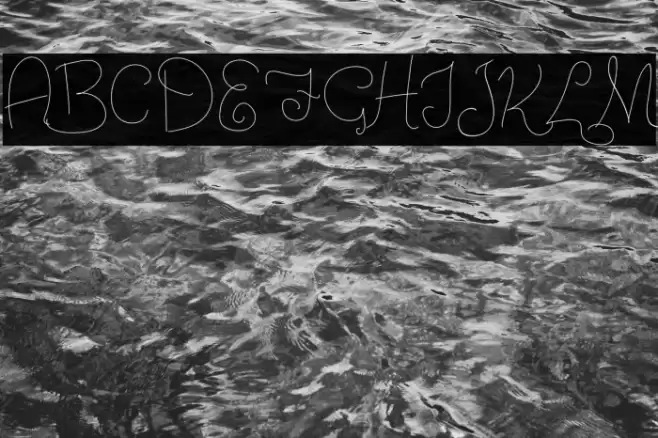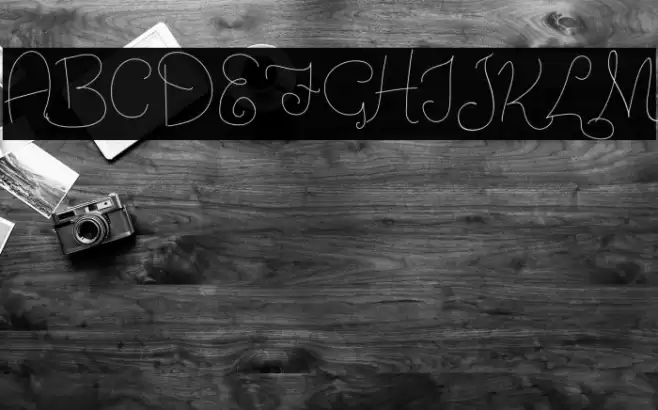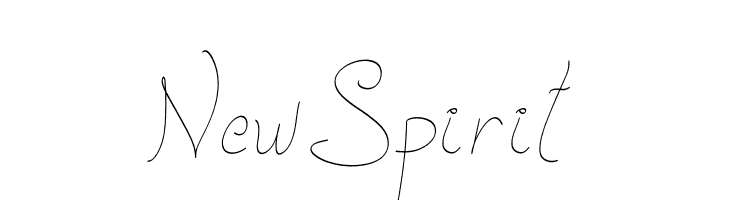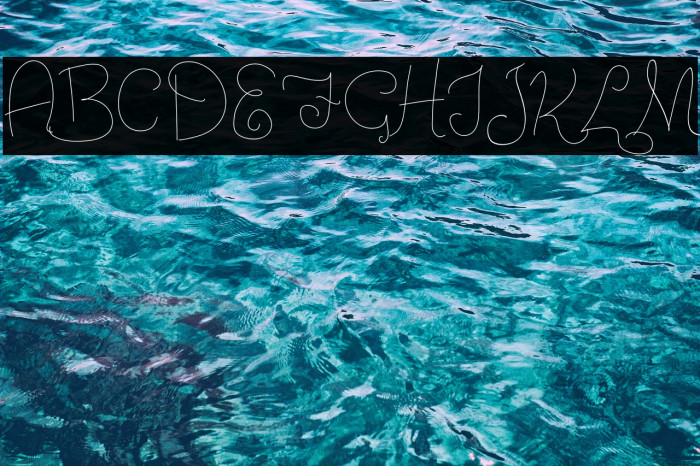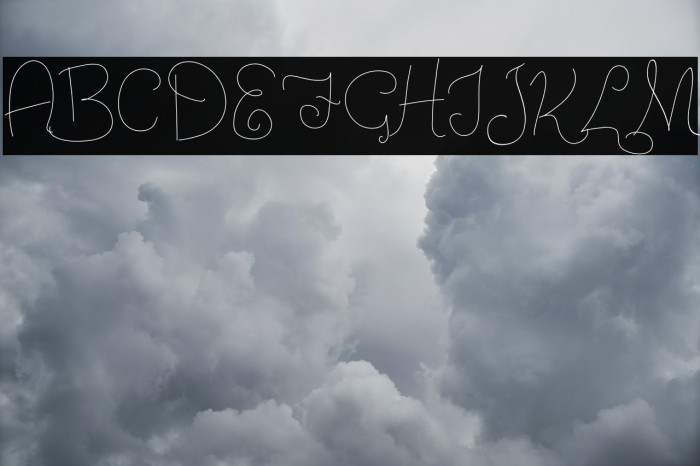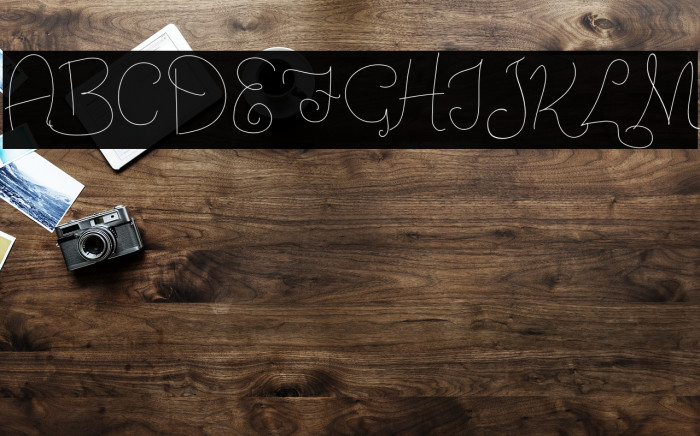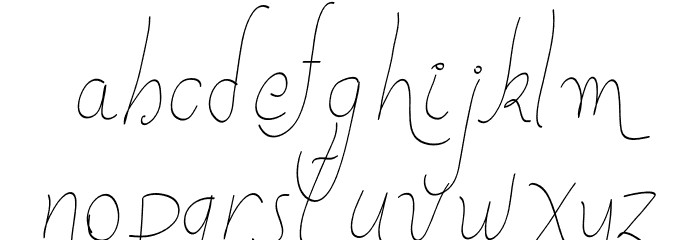
New Spirit Font
New Spirit Description
This font presents a unique blend of elegance and whimsy, characterized by its flowing, cursive-like strokes and delicate loops. The uppercase letters exhibit a playful yet sophisticated style, with each character featuring subtle flourishes that add a touch of personality. The lowercase letters maintain a consistent fluidity, with elongated ascenders and descenders that enhance the font's graceful appearance. The numerals and special characters are crafted with the same attention to detail, ensuring a cohesive look across all glyphs. This font's airy and light structure makes it ideal for projects that require a touch of elegance and creativity.
A whimsical and elegant cursive-style font with delicate loops and flowing strokes from Uncategorized fonts.
- Proposed Projects: Ideal for wedding invitations, greeting cards, branding, and artistic projects that require a touch of elegance and creativity.
- Weight: Light
- Character Spacing: Wide
- Use Case: Logos, Invitations, Artistic projects